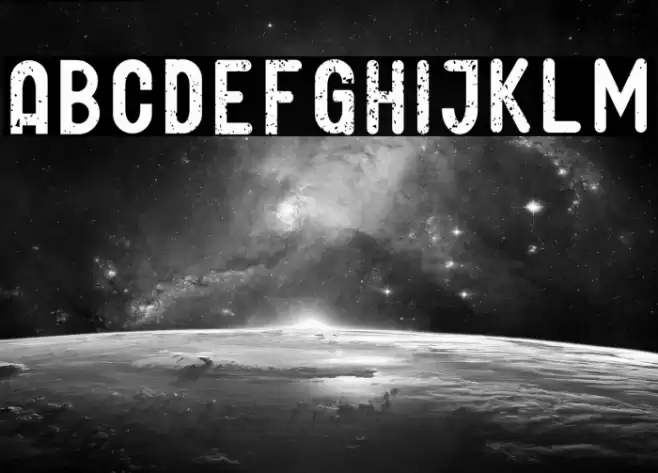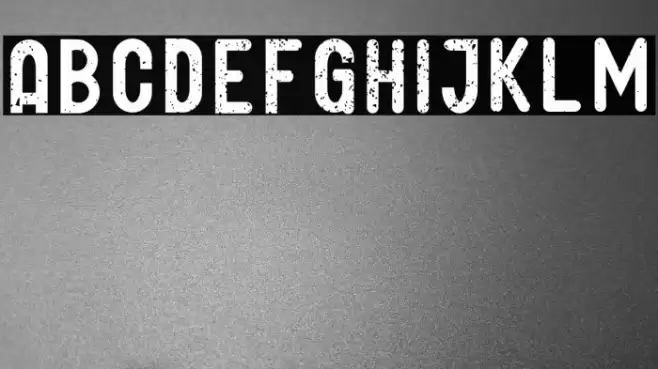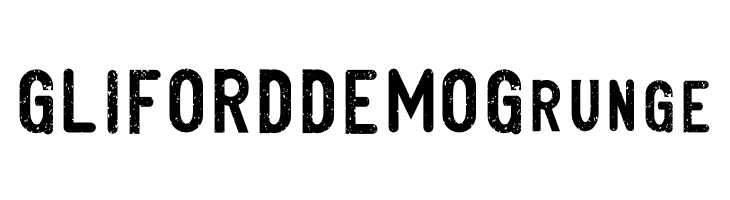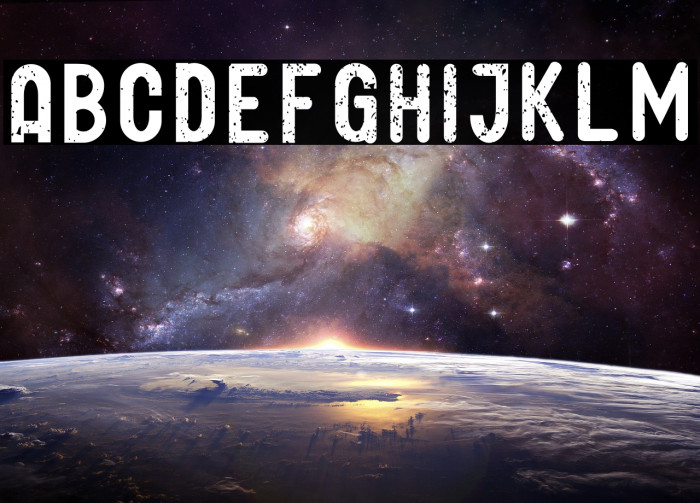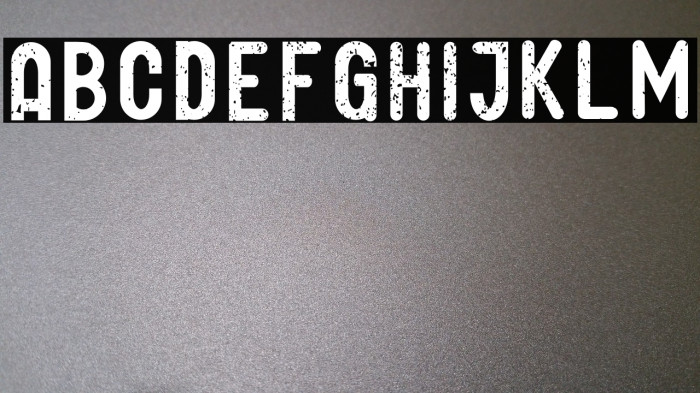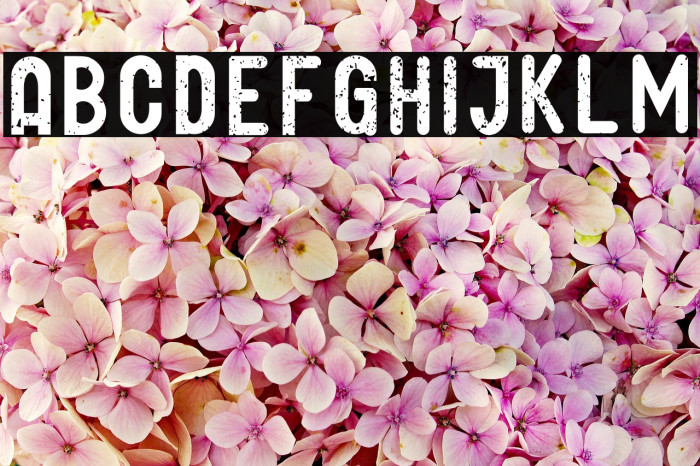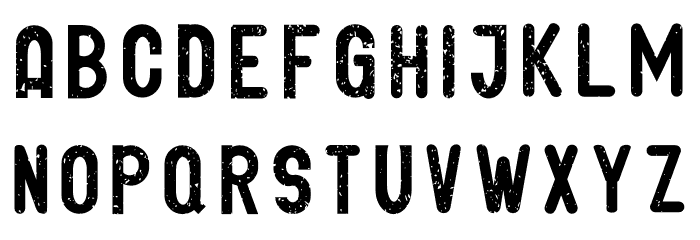
GLIFORD DEMO Grunge Font
GLIFORD DEMO Grunge Description
This font features a bold, distressed style that gives it a rugged, grunge appearance. The uppercase letters are uniform in height and width, with a slightly rough texture that suggests a worn or weathered look. The characters are well-defined, with sharp edges and a consistent stroke weight that maintains legibility despite the distressed effect. This font is ideal for projects that require a bold statement with a touch of edginess, such as posters, album covers, or branding for alternative or rock-themed events. The absence of lowercase letters and numbers emphasizes its use as a display font, focusing on impactful headlines or titles.
A bold, distressed font with a rugged, grunge appearance from Uncategorized fonts.
- Proposed Projects: Ideal for posters, album covers, and branding for alternative or rock-themed events.
- Overall Style: Grunge